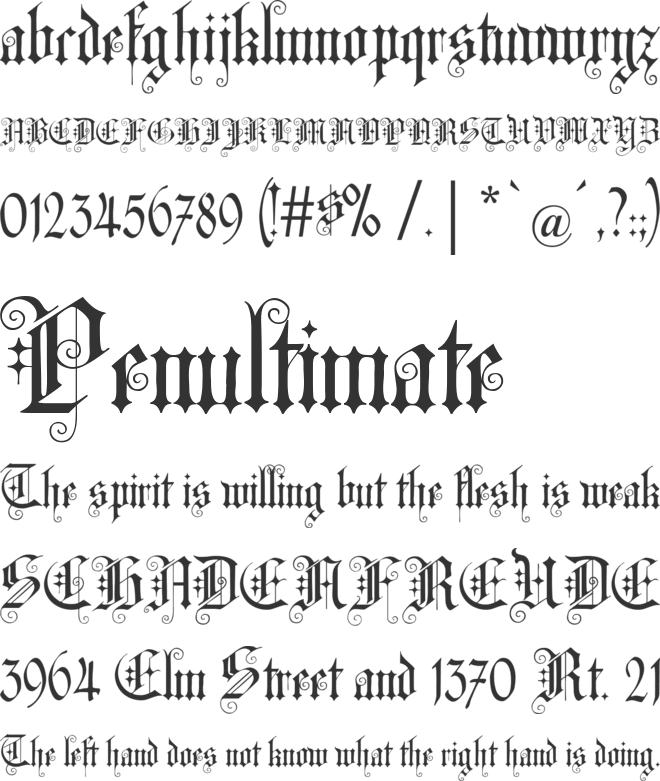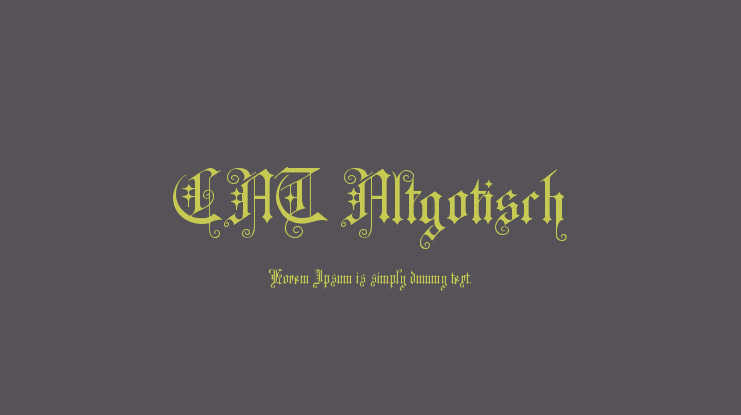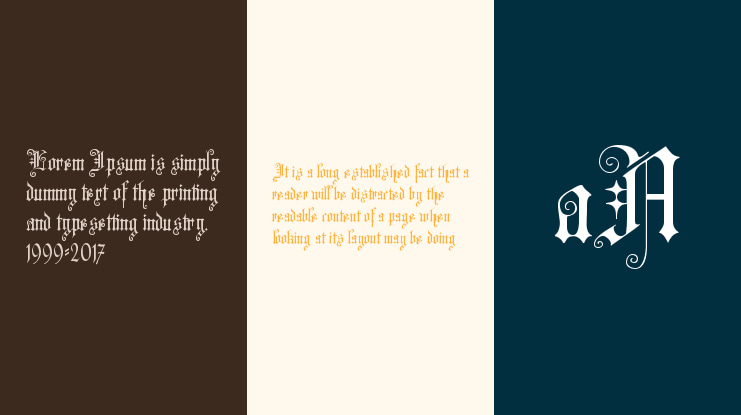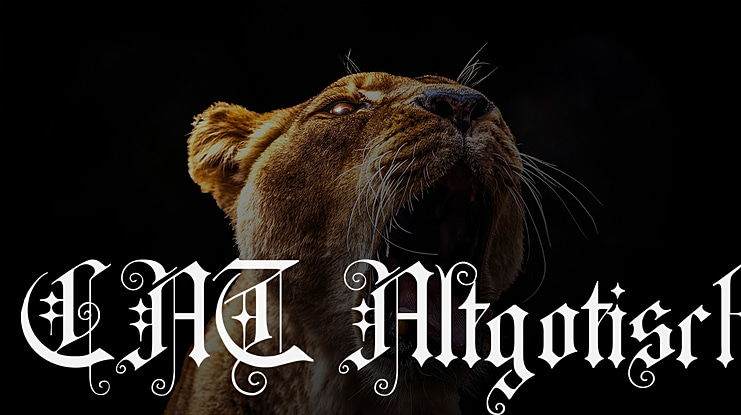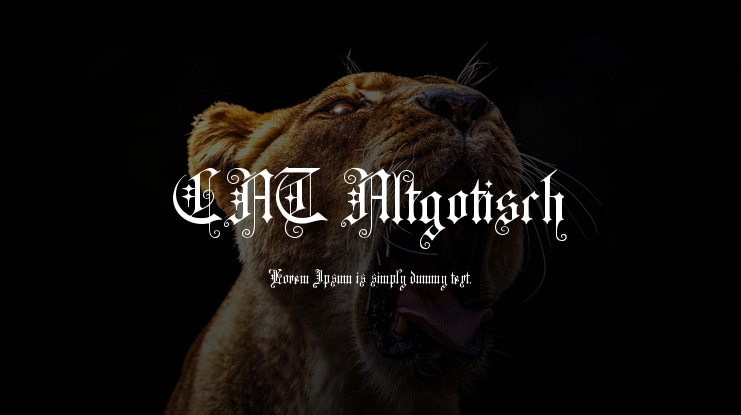
CAT Altgotisch Font
CAT Altgotisch is another highly ornate font of the late 19th century. The name Altgotisch (old gothic) is almost misleading because it refers to a significantly more stringent form, however this font was built upon old gothic writings.